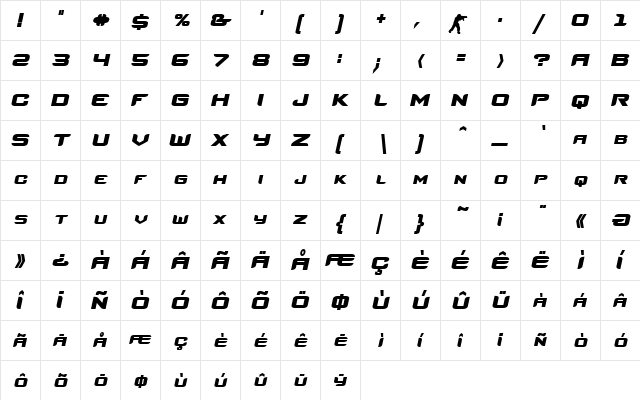
Counter-Strike Bold Italic
Design Context for Counter-Strike Typeface
Counter-Strike takes a measured approach to typography — its balanced proportions and neutral character make it a reliable workhorse for both digital and print work. The slanted form adds forward momentum and visual energy. The heavy weight commands attention and anchors typographic hierarchies.
Pro Tip: Use Counter-Strike for emphasis, pull quotes, and subheadings where its slanted energy can add rhythm to the layout.